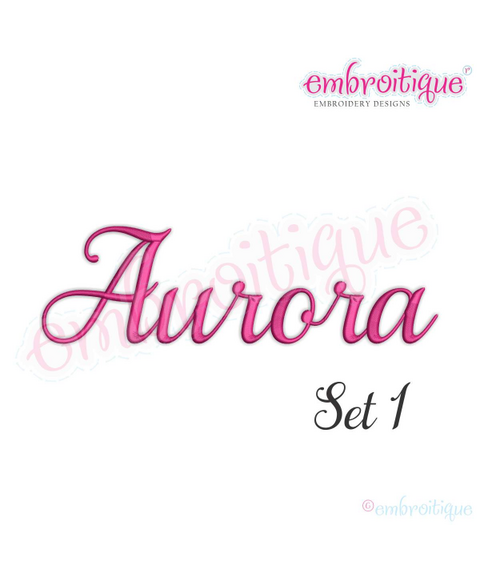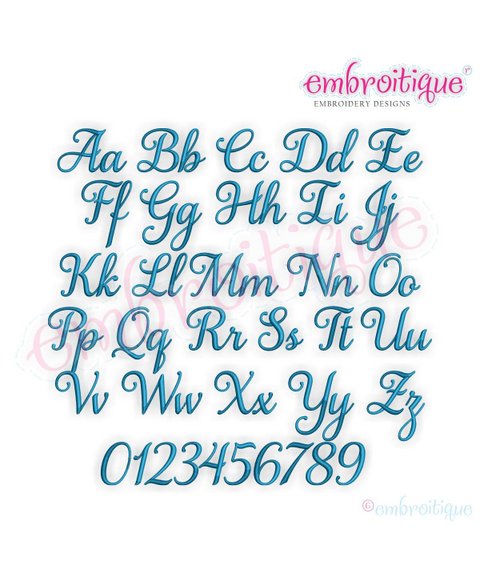
Aurora Script Monogram Set 1 - Beautiful Calligraphy Alphabet for machine embroidery
This is the first set of several interchangeable  monogram sets that can be used with eachother to create beautiful names words and phrases.